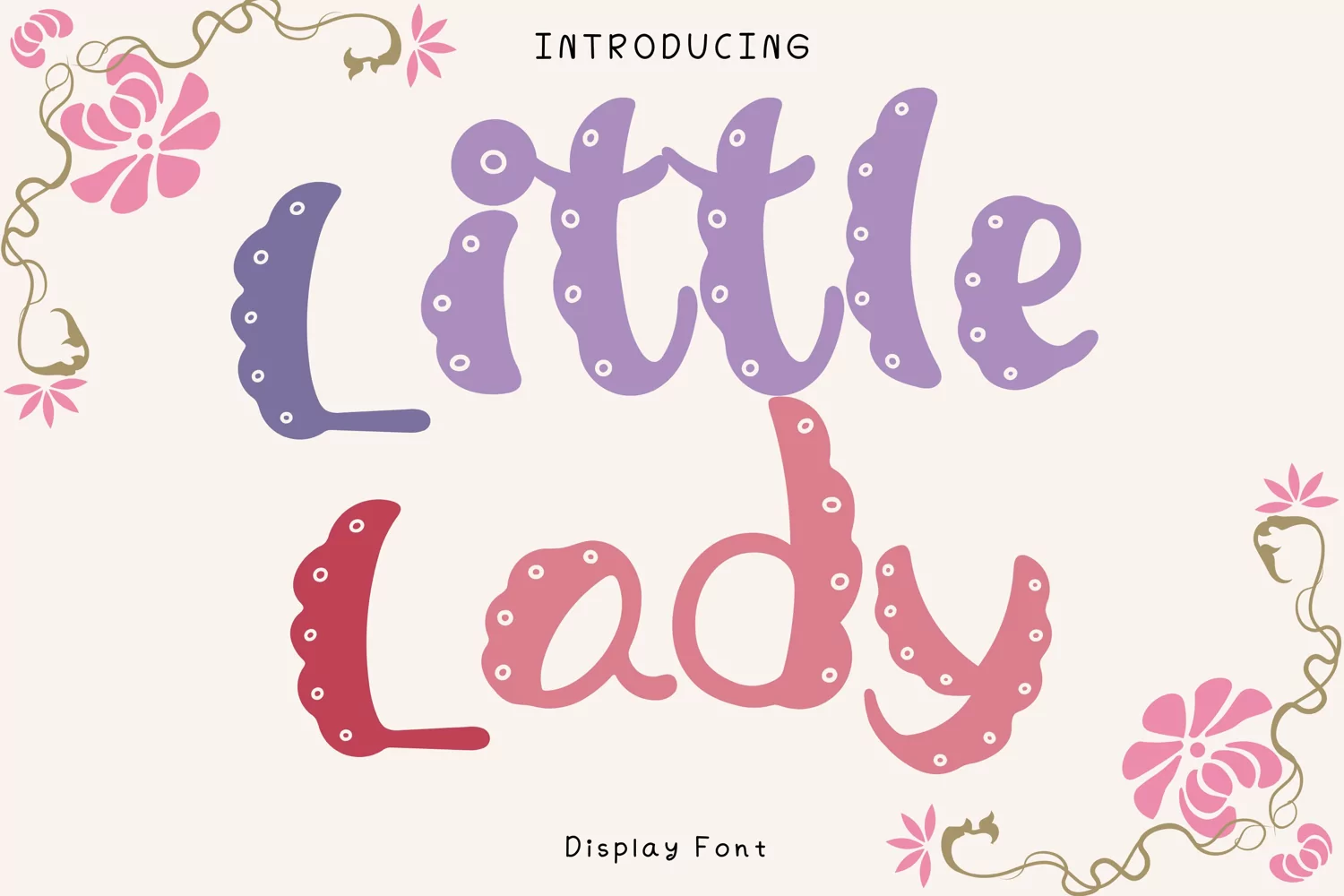
Created By AchiArt
Little Lady Style
LittleLady
Little Lady Style is a whimsical and clean handwritten font. It can easily be matched to an incredibly large set of projects, so add it to your creative ideas and notice how it makes them stand out!